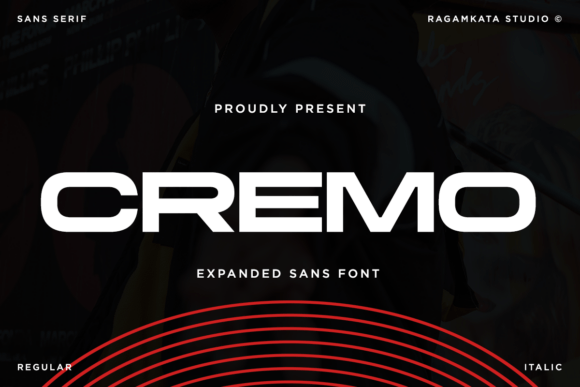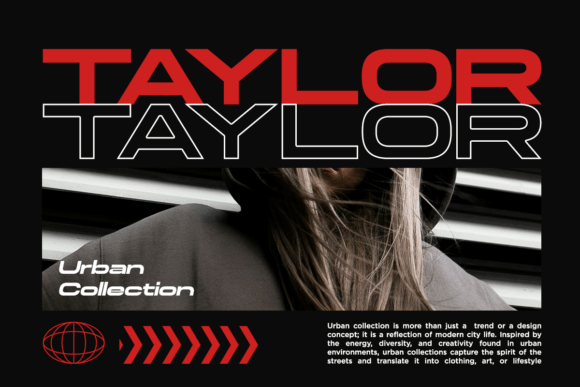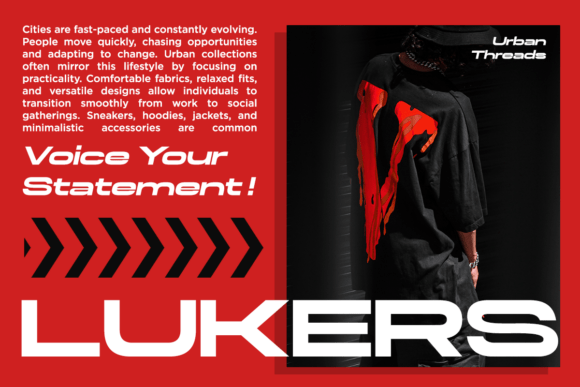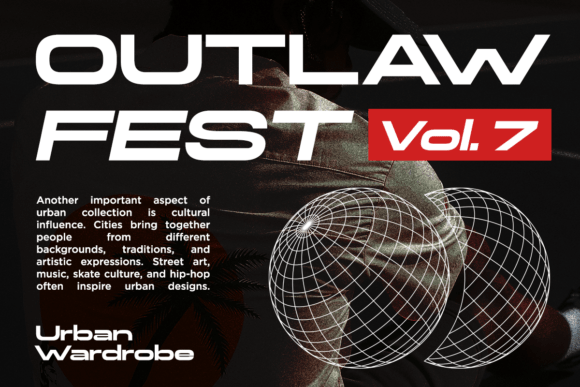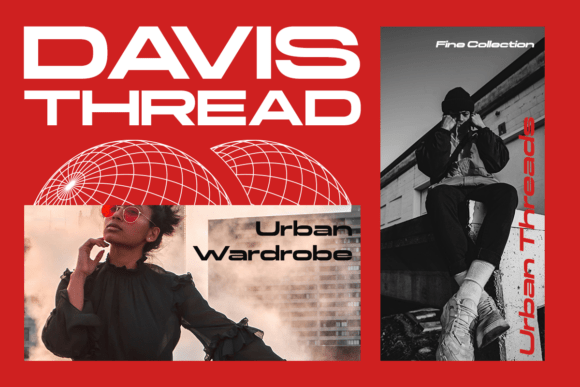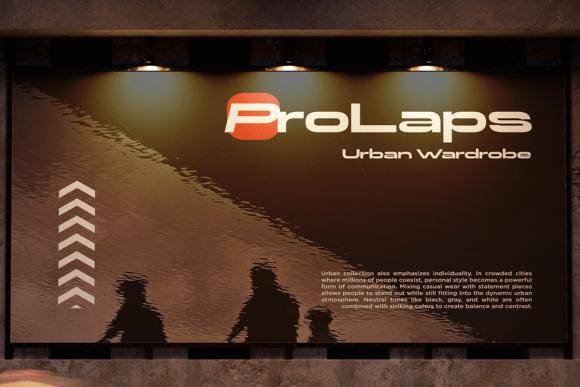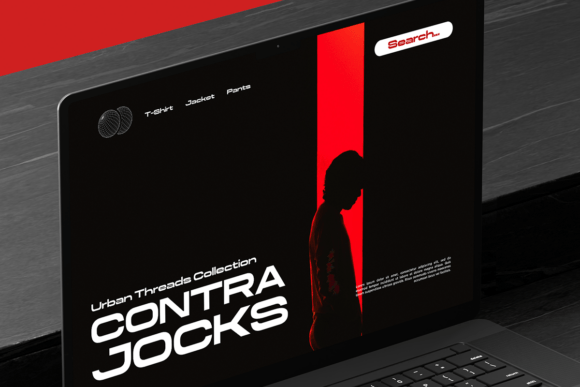
The Power of Typography: Elevating Your Design with Cremo Font
Remember that moment when you’re brainstorming a new project, and you’re searching for the perfect font to give it that extra oomph? You scroll through endless options, and nothing seems to fit. That’s where Cremo Font comes in – a bold expanded sans typeface designed to deliver a strong visual impact and modern clarity. Crafted with wide proportions, clean geometry, and powerful letterforms, Cremo brings a striking contemporary feel that instantly elevates headlines, branding, and display compositions.
As a designer, you know how crucial it is to have a versatile typographic solution that can adapt to various projects and mediums. That’s where Cremo Font shines – offering a premium, modern, and professional tone that’s perfect for branding designers, creative studios, digital creators, and marketing teams.
Cremo Font Key Features
- Font Family: Cremo is a modern sans-serif font family designed for various digital and print applications.
- Unique Characteristics: Cremo Font features a clean, minimalist design with subtle rounded edges and a geometric feel, making it suitable for modern branding and design projects.
Cremo Font Review
Cremo Font is a modern sans-serif typeface that attempts to capture the essence of a clean, industrial aesthetic. In many ways, it succeeds. ✨ Its sleek lines, minimal ornamentation, and open counters give it a professional feel that’s perfect for corporate or tech-related projects.
Here are some of the font’s strengths:
- High x-height, making it easily readable in smaller sizes
- Good legibility, even at large font sizes
- Works well in both on-screen and print applications
However, Cremo Font is not without its limitations. ⚠️ Some of the font’s weaknesses include:
- Lack of personality, making it feel somewhat generic
- May not stand out in a crowded design landscape
- Could benefit from a more comprehensive character set
Overall, Cremo Font is a solid choice for designers looking for a clean, modern sans-serif typeface. While it may not be the most exciting or unique option, it gets the job done. If you’re looking for a dependable, professional font that won’t distract from your design, Cremo Font is worth considering.
Cremo Font is ideal for:
- Designing invitations and event materials.
- Creating social media graphics and posts.
- Developing branding materials, such as logos and business cards.